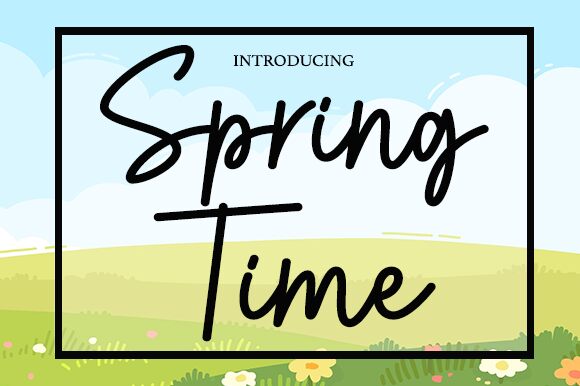
Spring Time
Spring Time is a charming and versatile handwritten font designed by Wahyu Studio. Its semi-light weight adds elegance and playfulness to any project. With its whimsical curves and delicate strokes, Spring Time is perfect for greeting cards, invitations, and wedding stationery. This font brings a touch of warmth to social media graphics, blog headers, and branding projects. Whether you're designing for fashion, beauty, or lifestyle industries, Spring Time will add a hint of enchantment to your creations. Let your imagination bloom with this delightful typeface!